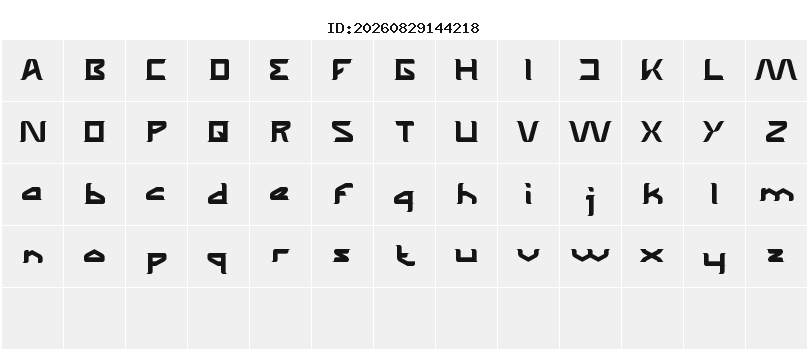
• Font Name: The Wizard of One CLick
About The Wizard of One CLick.ttf
The Wizard of One CLick.ttf is a modern, elegant sans-serif font designed for ultimate readability and visual harmony. Perfect for branding, headlines, web design, and print materials.